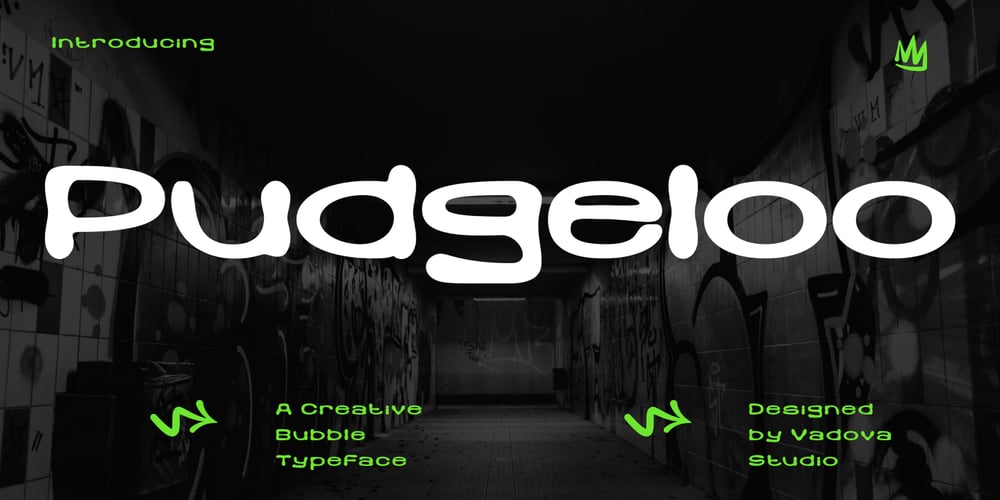
Pudgeloo
Pudgeloo font
Pudgeloo Font Family was designed by published by Vadova Std. Pudgeloo contains 1 styles and family package options. Elevate your designs with Pudgeloo Creative Bubble Font, a modern font perfect for adding elegance and style to your projects. Whether it’s for quotes, logotypes, magazine headers, or more, this versatile typeface ensures your text stands out beautifully.